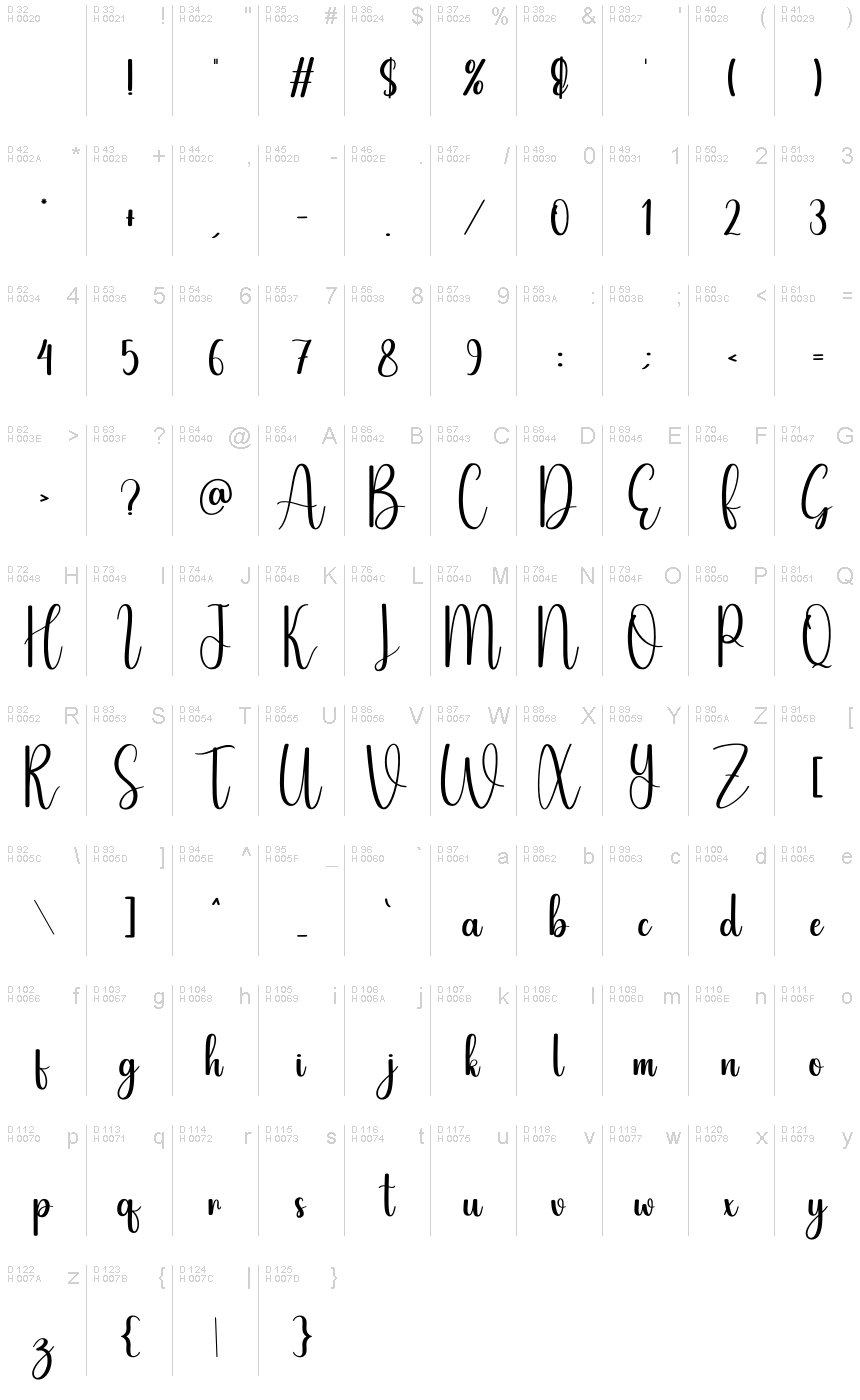
Simple Valentine
Simple Valentine, crafted by Scratchones, embodies the charm of a handwritten note with its fluid and natural strokes. This font exudes warmth and personal touch, making it perfect for projects that require an intimate and bespoke feel. Its elegant curves and gentle flow lend themselves to a wide variety of designs, from heartfelt greeting cards to personalized branding materials.
The aesthetic appeal of Simple Valentine lies in its balance between casual spontaneity and refined grace, offering designers the ability to convey sincerity and affection through typography. Ideal for romantic occasions, signature logos, or any design that benefits from a touch of human presence without the formality of traditional script fonts. Simple Valentine invites audiences into a world where every character is infused with love and care.